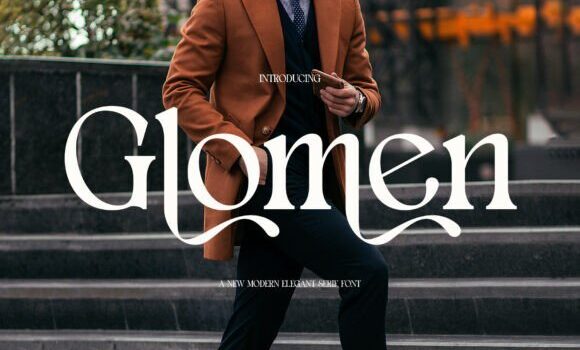
glomen
Glomen Font – Free Download Introduction to Glomen Font Glomen is an elegant ligature serif modern font that evokes the beauty of fresh blooms and timeless elegance. 📸 Preview Gallery 6 images 📌 Product Name Glomen Font 👤 Author Alfinart